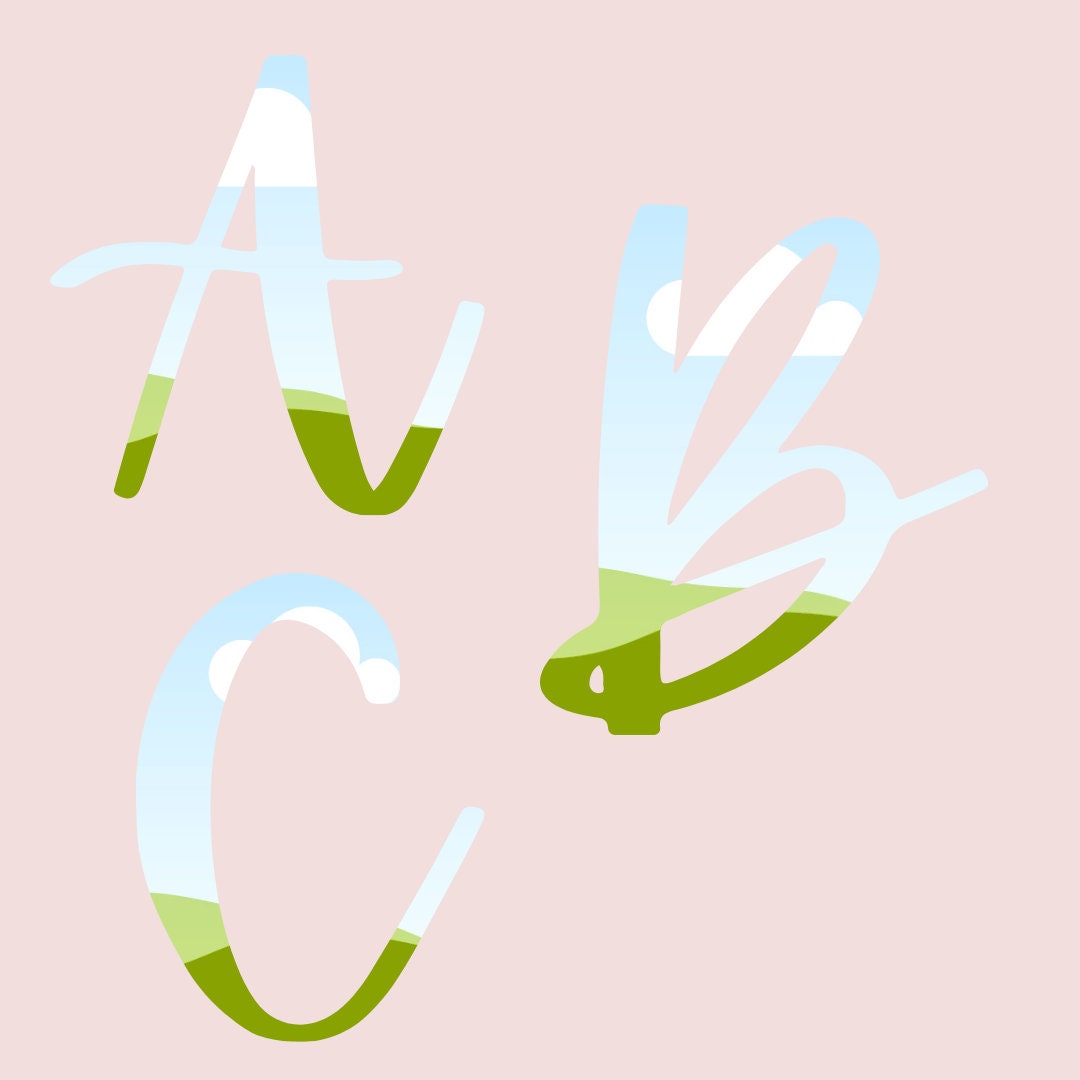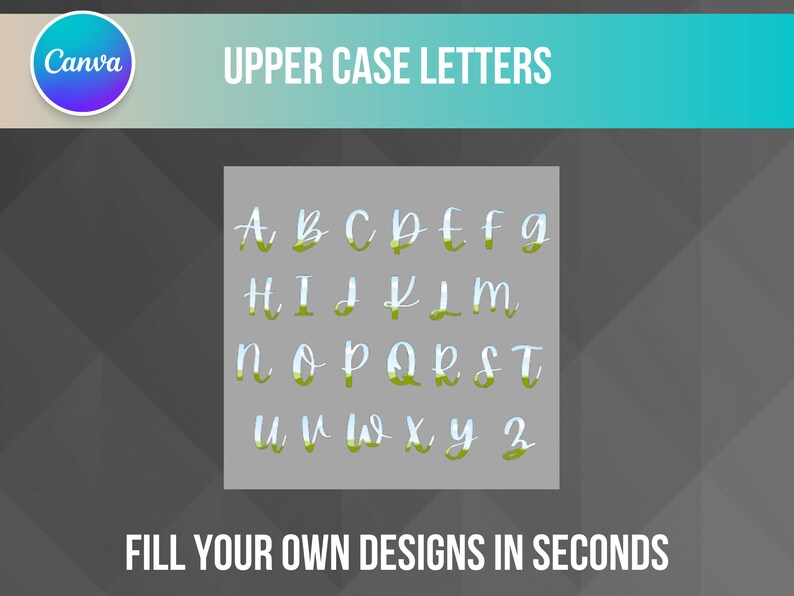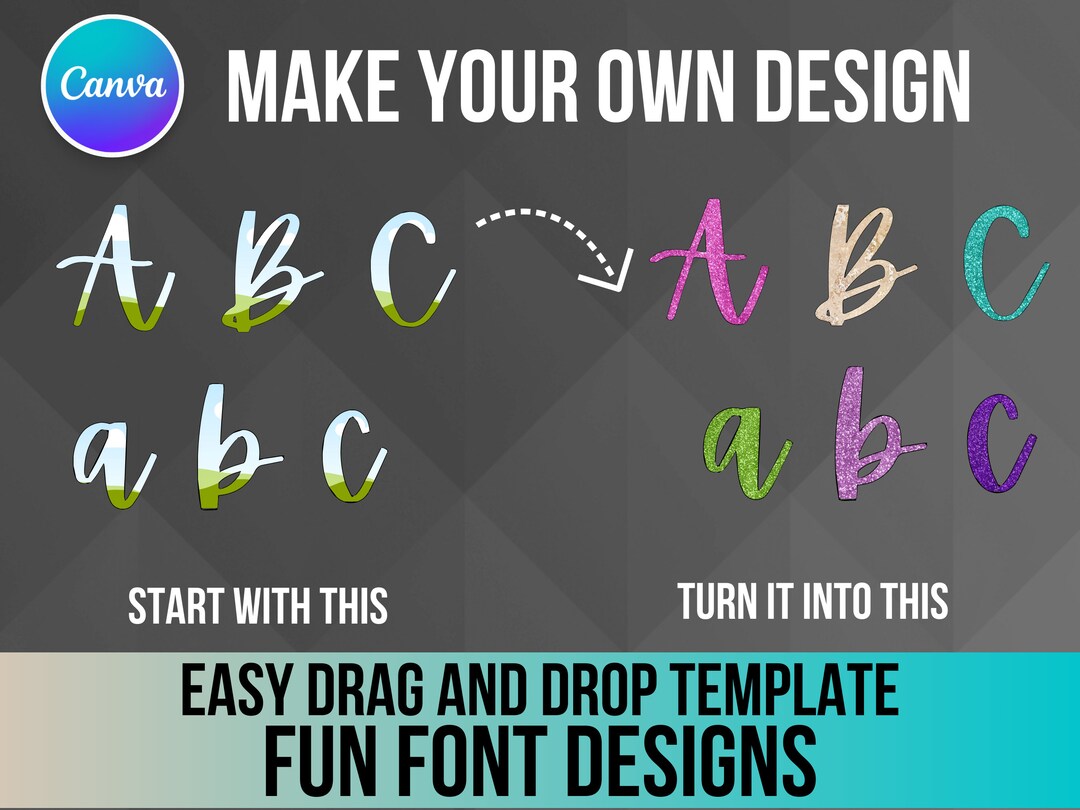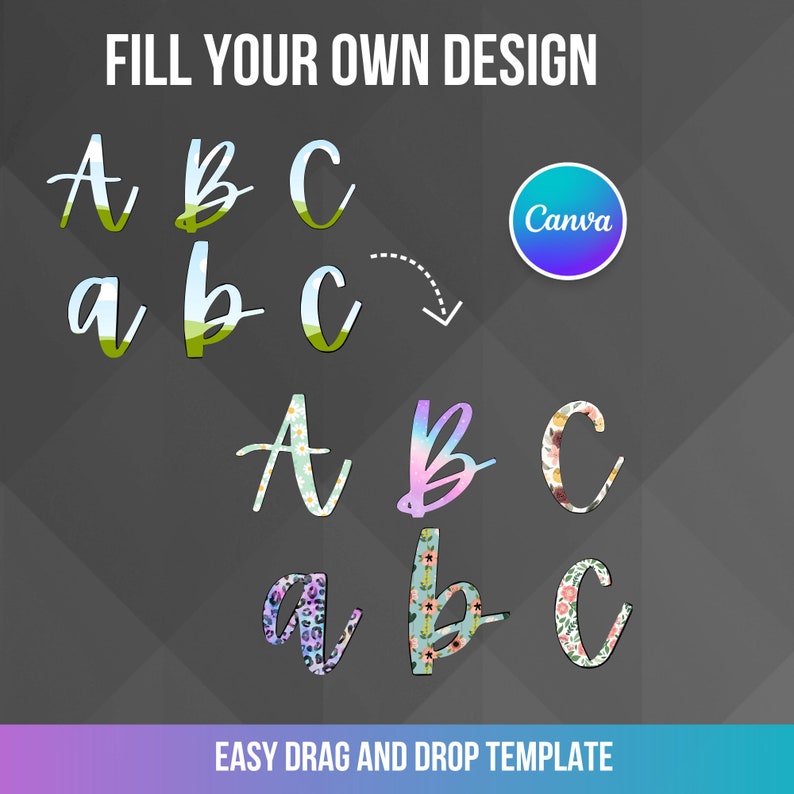
Apricots Font Canva Download . This font is perfect for modern projects, headings, blogs, logos, brandings,. This font is perfect for modern projects, headings, blogs, logos, brandings, invitations and more!. Click to find the best 841 free fonts in the canva style. Apricots is a handwritten font with a fun, modern look! Trusted by millions + easy to use font files + full support. 19,158 downloads (14 yesterday) free for personal use. To download the apricots canva font for free, simply visit the official canva website and navigate to the fonts section. Hi there, this font is for personal use only :) please purchase the. Apricots font is a handwritten font with a fun, modern look! Every font is free to download!
Apricots Font Canva Download Apricots font is a handwritten font with a fun, modern look! Trusted by millions + easy to use font files + full support. This font is perfect for modern projects, headings, blogs, logos, brandings,. Click to find the best 841 free fonts in the canva style. Every font is free to download! Apricots is a handwritten font with a fun, modern look! 19,158 downloads (14 yesterday) free for personal use. This font is perfect for modern projects, headings, blogs, logos, brandings, invitations and more!. Hi there, this font is for personal use only :) please purchase the. To download the apricots canva font for free, simply visit the official canva website and navigate to the fonts section.
Apricots Handwritten Script Font (288301) Handwritten Font Apricots Font Canva Download Click to find the best 841 free fonts in the canva style. Apricots is a handwritten font with a fun, modern look! Trusted by millions + easy to use font files + full support. 19,158 downloads (14 yesterday) free for personal use. Hi there, this font is for personal use only :) please purchase the. Apricots font is a handwritten. Apricots Font Canva Download.
Apricot Regular Font Shopea Fruit Apricots Font Canva Download Apricots font is a handwritten font with a fun, modern look! This font is perfect for modern projects, headings, blogs, logos, brandings,. Apricots is a handwritten font with a fun, modern look! This font is perfect for modern projects, headings, blogs, logos, brandings, invitations and more!. To download the apricots canva font for free, simply visit the official canva website. Apricots Font Canva Download.
Apricot Regular Download For Free, View Sample Text, Rating And More Apricots Font Canva Download Apricots font is a handwritten font with a fun, modern look! Click to find the best 841 free fonts in the canva style. This font is perfect for modern projects, headings, blogs, logos, brandings, invitations and more!. Every font is free to download! Trusted by millions + easy to use font files + full support. Hi there, this font is. Apricots Font Canva Download.
Apricot Sweet Font by AchiArt · Creative Fabrica Apricots Font Canva Download Apricots font is a handwritten font with a fun, modern look! This font is perfect for modern projects, headings, blogs, logos, brandings,. 19,158 downloads (14 yesterday) free for personal use. Every font is free to download! Click to find the best 841 free fonts in the canva style. Trusted by millions + easy to use font files + full support.. Apricots Font Canva Download.